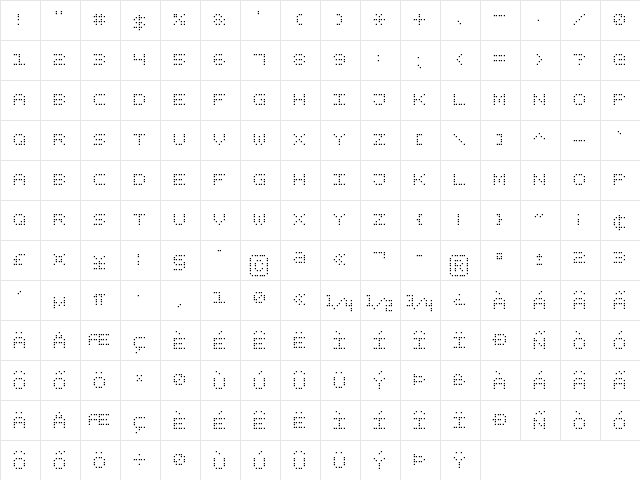
Square Dot Digital-7 Regular
| Foundry | Style-7 |
| Designer | Sizenko Alexander |
Square Dot Digital-7 channels digital-age aesthetics through its sharp, structured letterforms — ideal for brands that want to signal innovation.
Pro Tip: Try Square Dot Digital-7 with generous letter-spacing in UI labels and navigation — the geometric forms benefit from room to breathe.